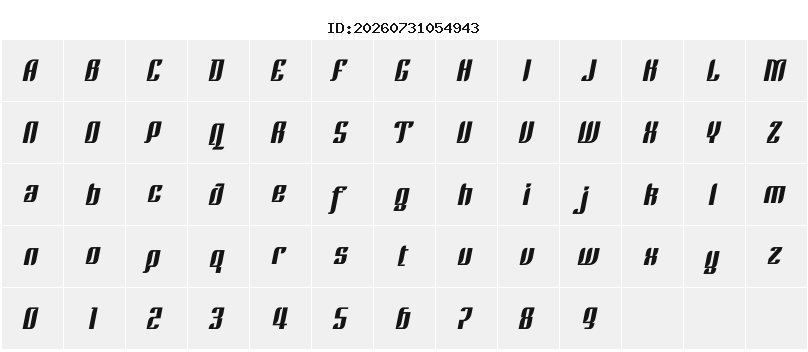
LTRezident Four Preview
• Font Name: LTRezident Four
• Full Font Name: Linotype Rezident Four
• Designer: Paul van der Laan
About LTRezident Four.ttf
LTRezident Four.ttf is a modern, elegant sans-serif font designed for ultimate readability and visual harmony. Perfect for branding, headlines, web design, and print materials.